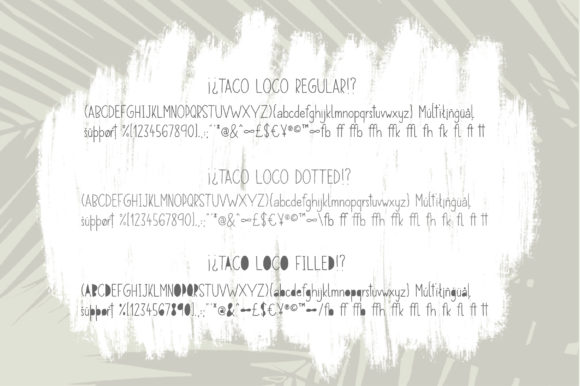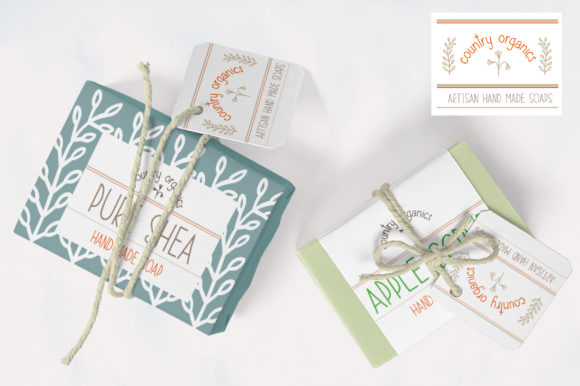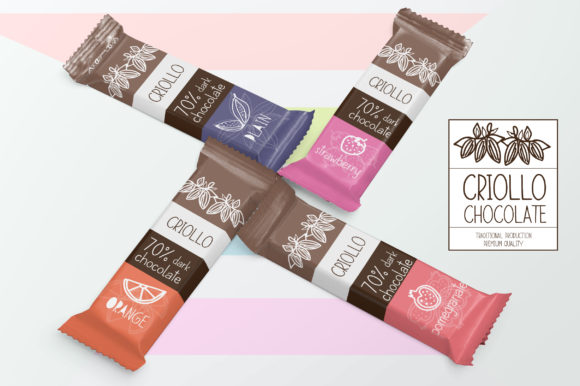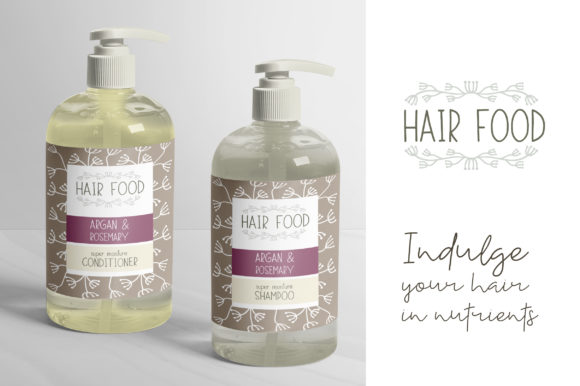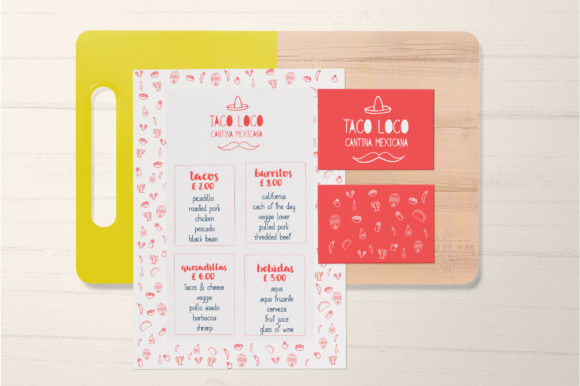
Taco Loco Font
About Taco Loco Font
Taco Loco is a fun and friendly handwritten font. It has three different variations and will take your designs to the next level!